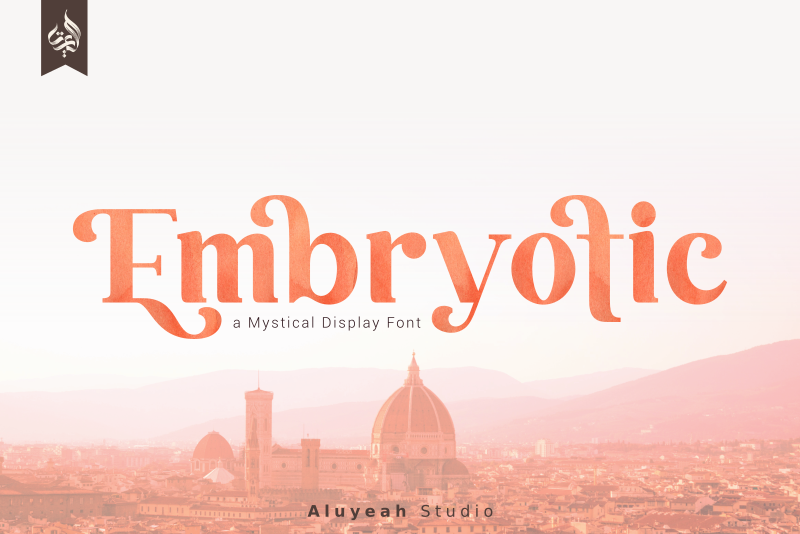
Font name: | Embryotic |
Author: | Aluyeah Studio |
A Font by Aluyeah Studio Please read this before using the font. To get results like the preview just type E.4mb.2ryot.3ic This version is a Personal to Use Only. If you wish to use it for commercial use, you need to purchase a premium license. Bonjour! Embryotic is a mystical display font. This font was carefully crafted and inspired by world top fashion brand. In general, it creates a luxurious and elegant look in design. Super Easy to Use alternates - It's OpenType support but you can easly call alternates character using special combination like A.2 B.4 h.3 etc so you dont need special software Need for commercial use? https://fontbundles.net/aluyeahstudio/917538-al-embryotic Buy me a coffee? https://paypal.me/aluyeahstudio Corporate license email me linggarsundoro@gmail.com |